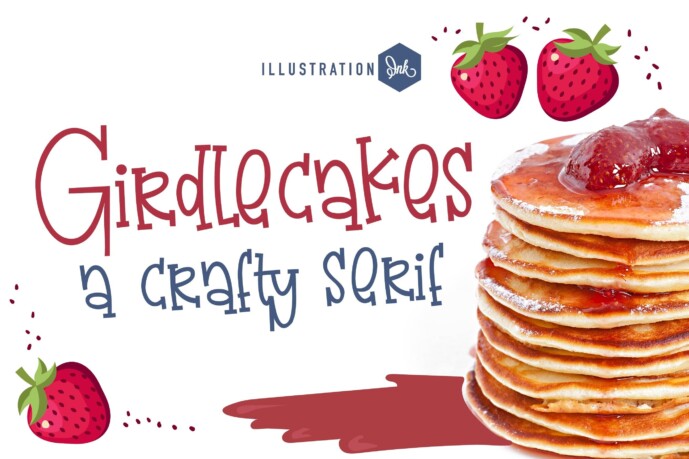
Girdlecakes Font
Designer: Illustration Ink
Girdlecakes Font
This hand-crafted font is a simple, bouncy, whimsical print with slab serifs throughout.